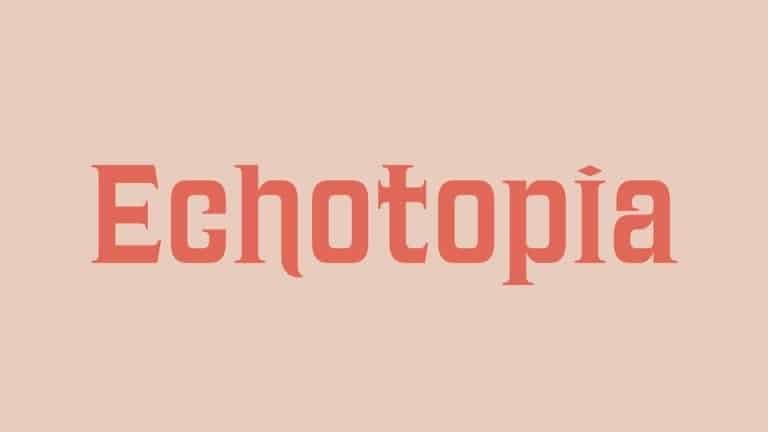
Echotopia Serif Font
Echotopia Serif Font is a Retro Serif Display Typeface. Made from font designer named erikkirtley. This typeface is a vintage serif typeface based on the masthead of an issue of The Echo published sometime between 1890 and 1900 according to the Library of Congress.